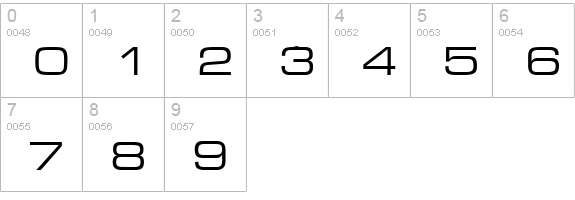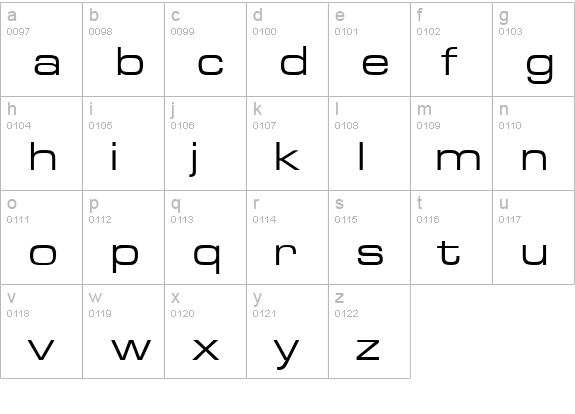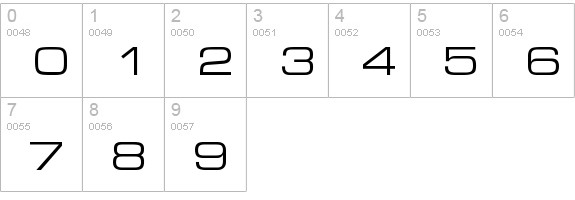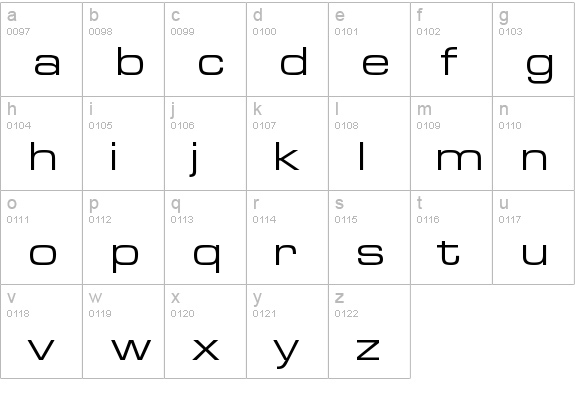
M730-Sans-Regular is the standard, neutral variant in the M730 typeface family \xE2\x80\x94 well suited to general body text, paragraphs, and standard typographic work.
The M730-Sans-Regular font is a modern and versatile typeface that strikes the perfect balance between professionalism and readability. With its clean lines and balanced proportions, this font is suitable for a wide range of design projects, from branding to editorial layouts. What sets the M730-Sans-Regular font apart is not just its sleek design, but also the fact that it is available for free download at FontsMarket.com. This means that you can easily access and use this high-quality font in your projects without any cost or restrictions. Whether you are working on a website, a poster, a logo, or any other design project, the M730-Sans-Regular font will add a touch of sophistication and clarity to your text. Its versatility and timeless appeal make it a valuable addition to any designer's toolkit. Download the M730-Sans-Regular font today and elevate your designs with its effortless elegance.